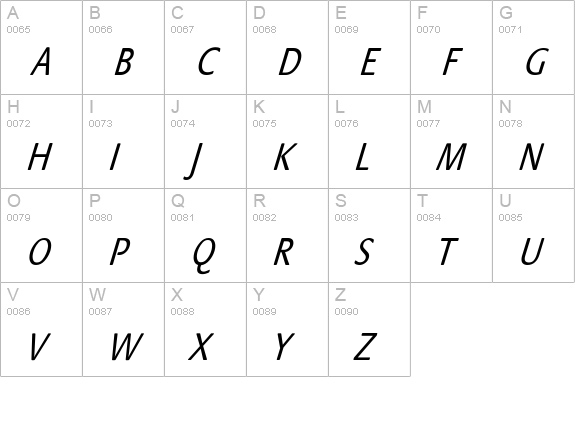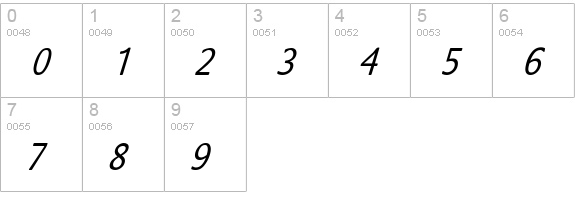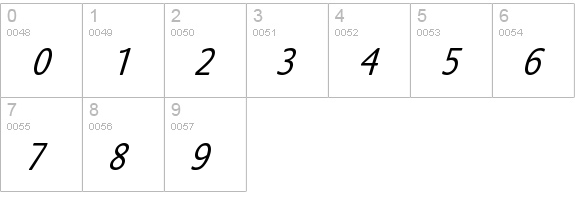
StackCndObl-Nor Font Details
Introducing StackCndObl-Nor, a stunning and versatile font that will add a touch of elegance and sophistication to any design project. With its unique combination of sharp angles and flowing curves, this font brings a modern twist to traditional typography. Perfect for both print and digital applications, StackCndObl-Nor is ideal for logos, headlines, posters, and more. Its sleek and contemporary design will make your text stand out and leave a lasting impression. But that's not all - StackCndObl-Nor is also freely available to download at FontsMarket.com. Yes, you read that right - this incredible font can be yours at absolutely no cost! Whether you're a professional designer or an aspiring creative, this font is a must-have in your collection. With its extensive character set, including uppercase and lowercase letters, numbers, punctuation marks, and special characters, StackCndObl-Nor offers endless possibilities for creative expression. Its versatility ensures that it can adapt to any design concept or style, making it a go-to choice for designers worldwide. Don't miss out on this incredible opportunity to enhance your designs with StackCndObl-Nor. Download it for free today at FontsMarket.com and see how it can take your projects to new heights.